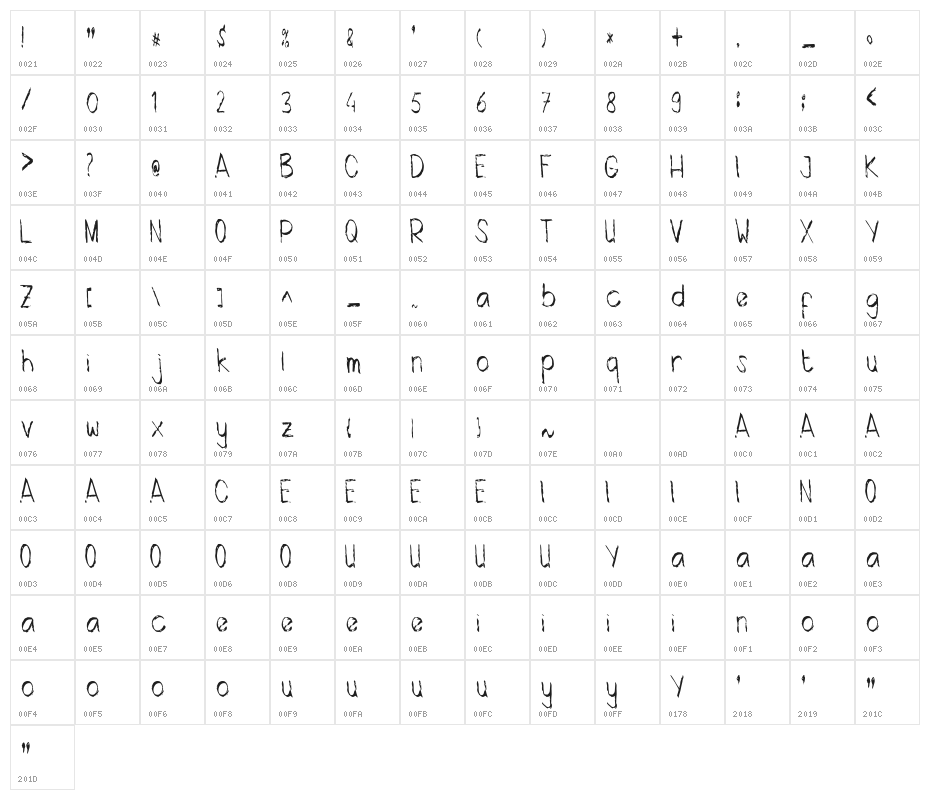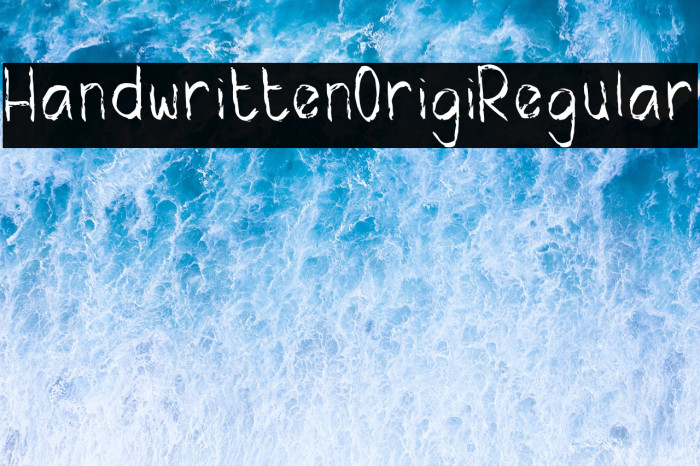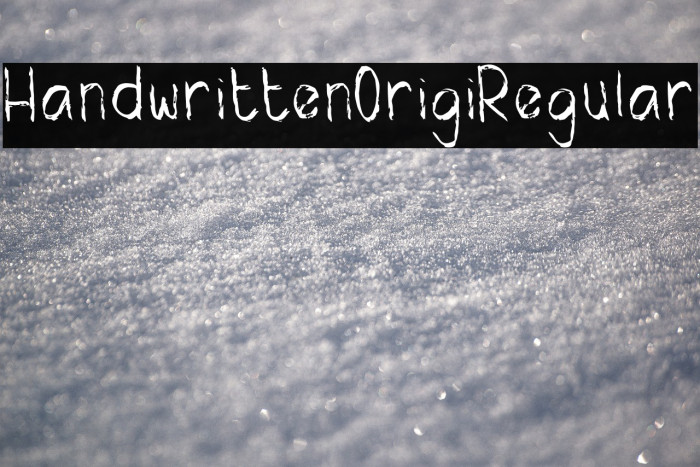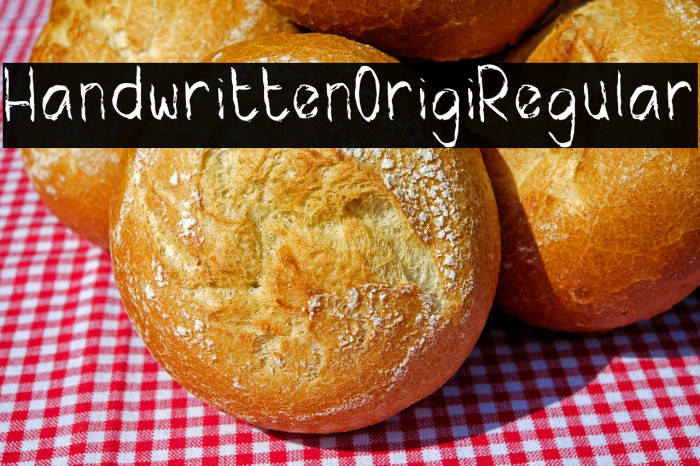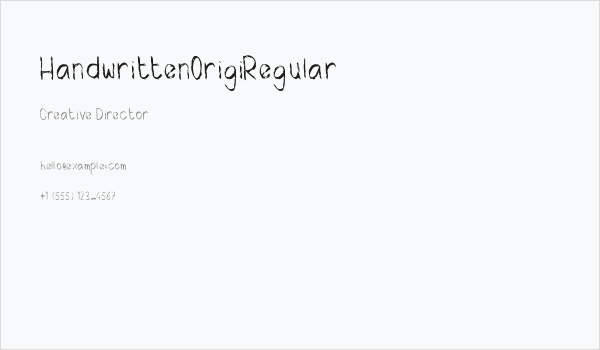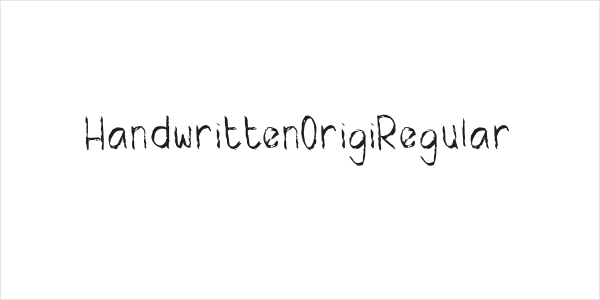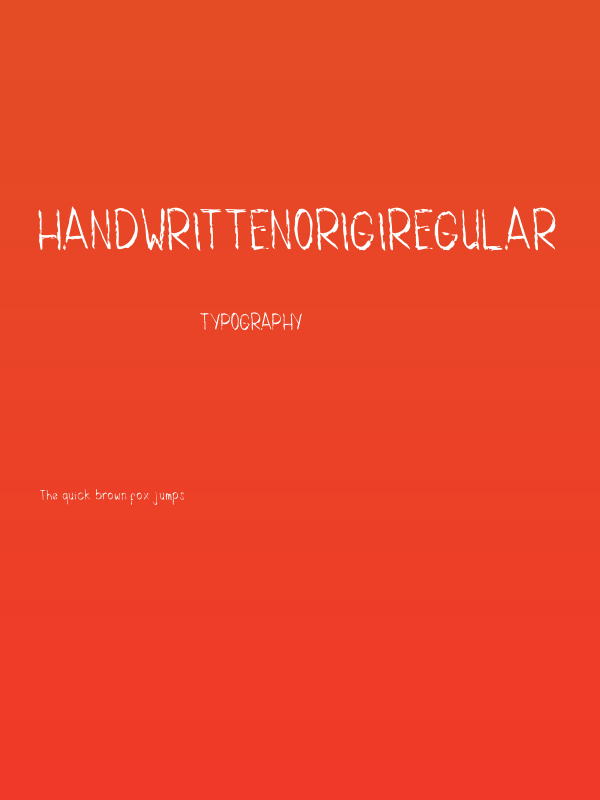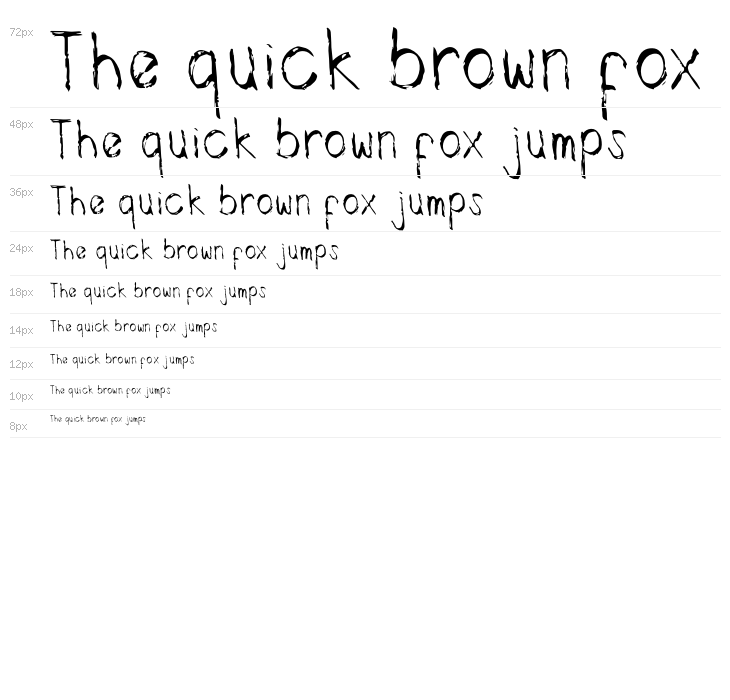
HandwrittenOrigiRegular Font
HandwrittenOrigiRegular Description
This font exhibits a raw, organic feel with its hand-drawn appearance. The characters are irregular and slightly chaotic, giving an impression of spontaneity and creativity. The strokes are uneven, with some parts appearing thicker and others thinner, adding to the dynamic and energetic look. This style is reminiscent of artistic brush strokes, making it ideal for projects that require a personal touch or an artistic flair. The font maintains legibility despite its unconventional style, with each letter distinct and recognizable. The numbers and special characters follow the same aesthetic, ensuring consistency throughout.
| Overall Style | Artistic |
| Use Case | Logos, Posters, Invitations |
| Proposed Projects | Ideal for artistic projects, personal branding, creative posters, and unique invitations. |